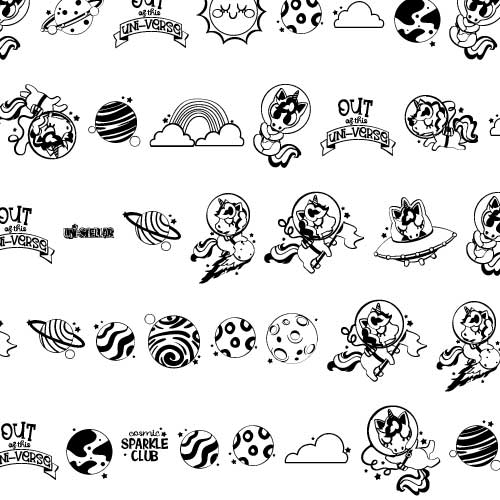
DB Uni-stellar - DB
This magical doodlebat font features 26 adorable space unicorns perfect for cards, crafts, gifts, planner stickers, classrooms, scrap book pages, parties, Valentine's and more!